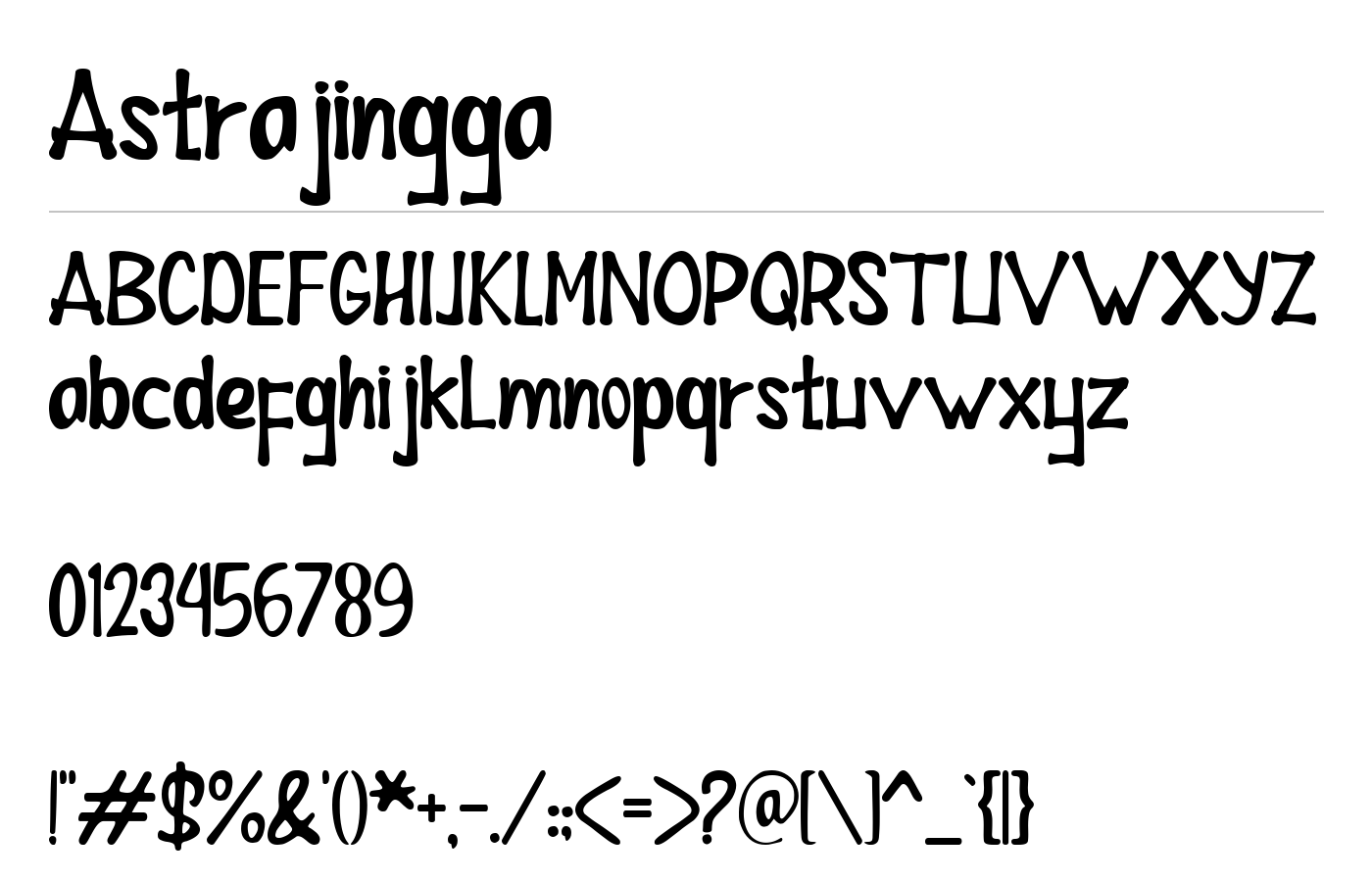
Astrajingga is a playful and quirky sans serif font with a hand-drawn feel, featuring tall, slightly irregular letterforms and rounded edges that convey warmth and personality. Its moderate contrast and casual style make it ideal for informal branding, children's content, and creative projects that want a friendly and approachable vibe. This font works well in headlines, posters, and logos where a unique, personal touch is needed to stand out.
Astrajingga Font